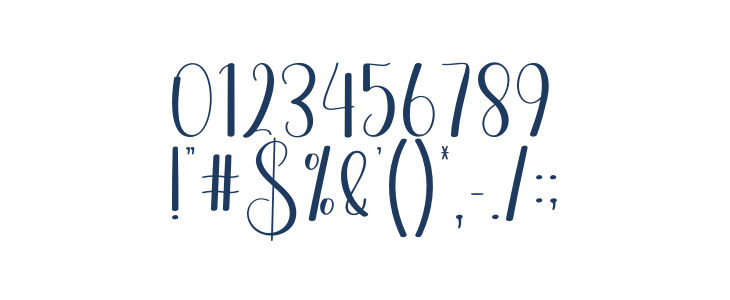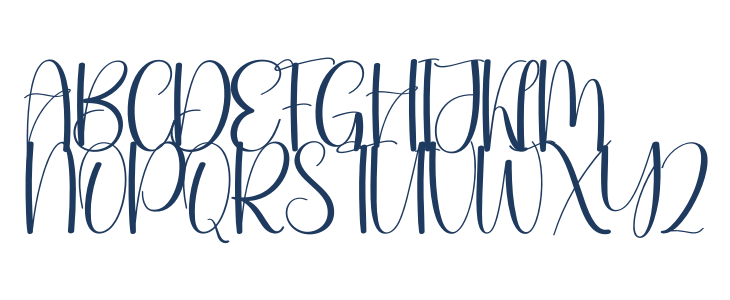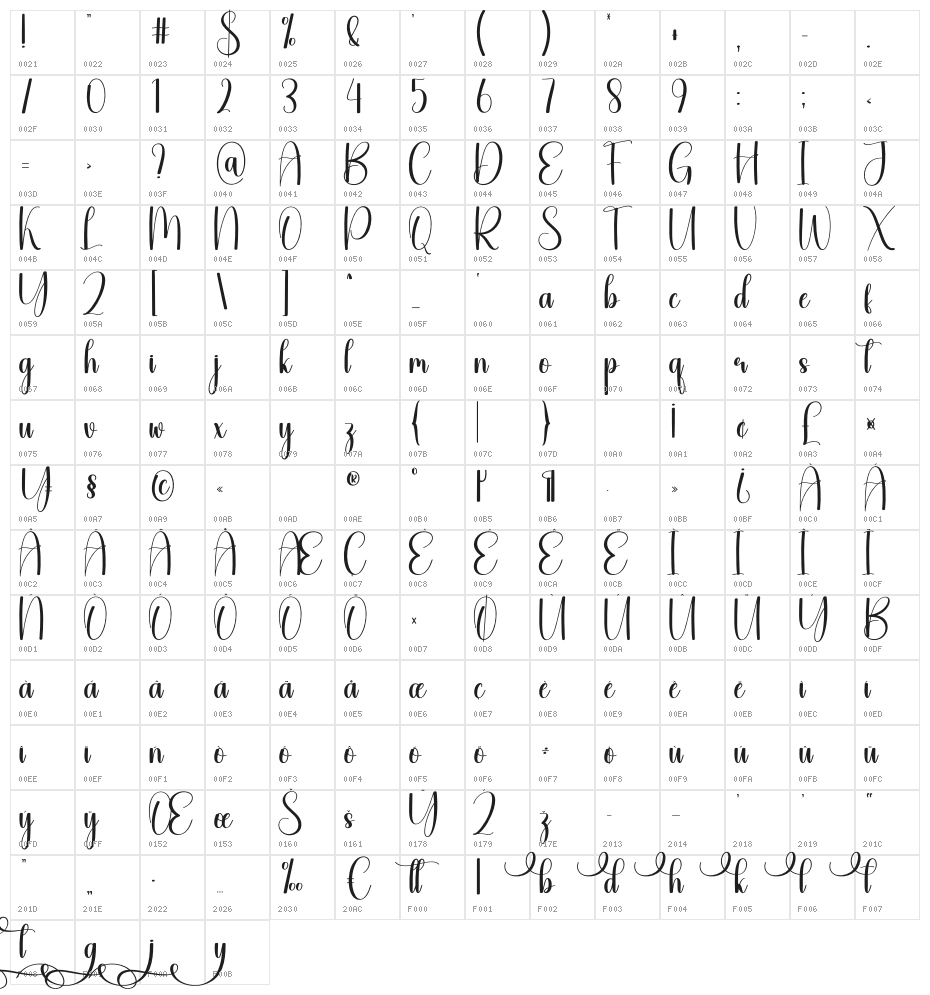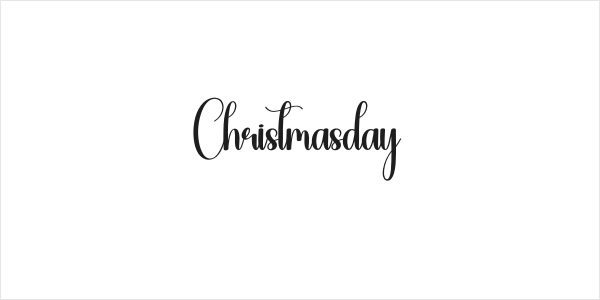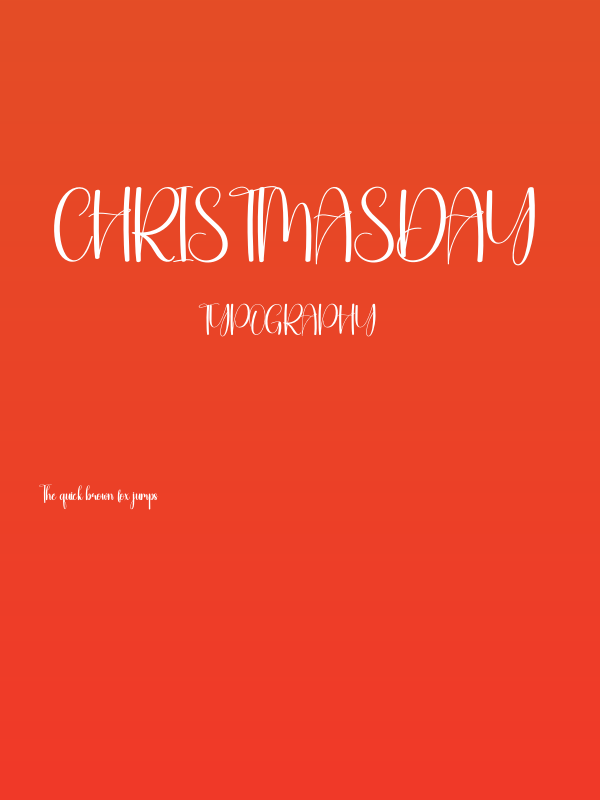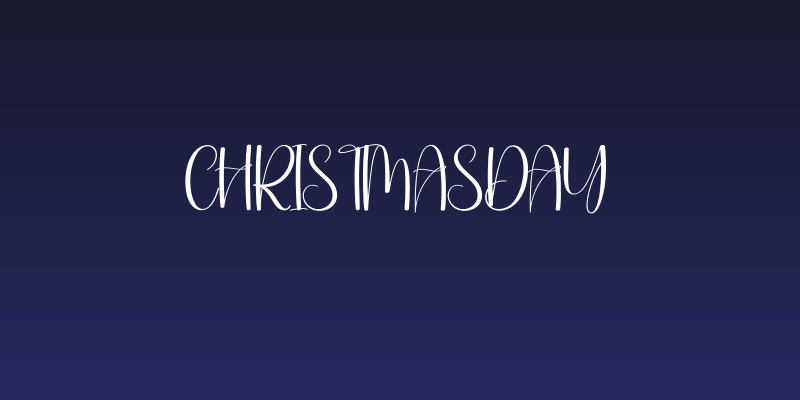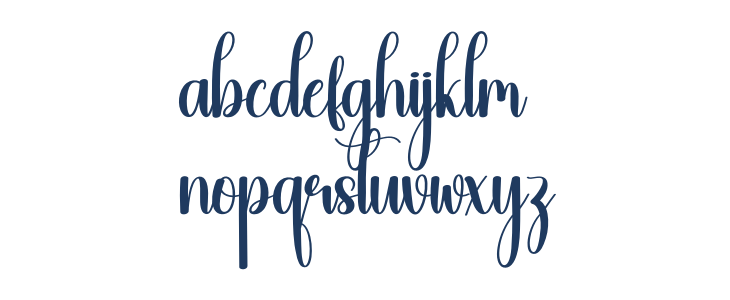
Christmasday Font
Christmasday Description
A playful, handwritten script font with tall, narrow letterforms and dramatic ascenders and descenders. The strokes are smooth and flowing, with a casual, whimsical feel. Uppercase and lowercase letters are distinct, and numerals and symbols maintain the same lively style.
| Overall Style | Decorative, Playful, Festive |
| Use Case | Headlines, Invitations, Decorative text |
| Proposed Projects | Greeting cards, holiday invitations, festive branding, social media graphics, decorative headlines. |